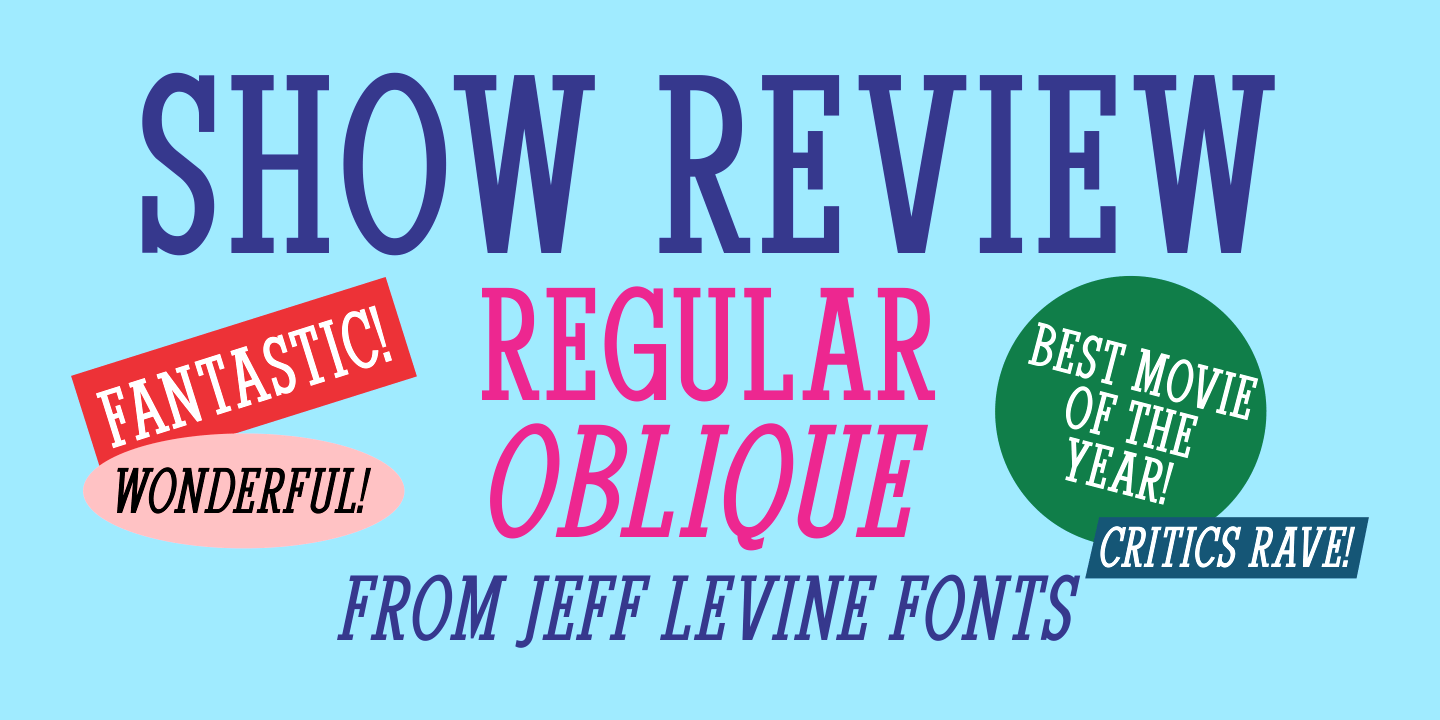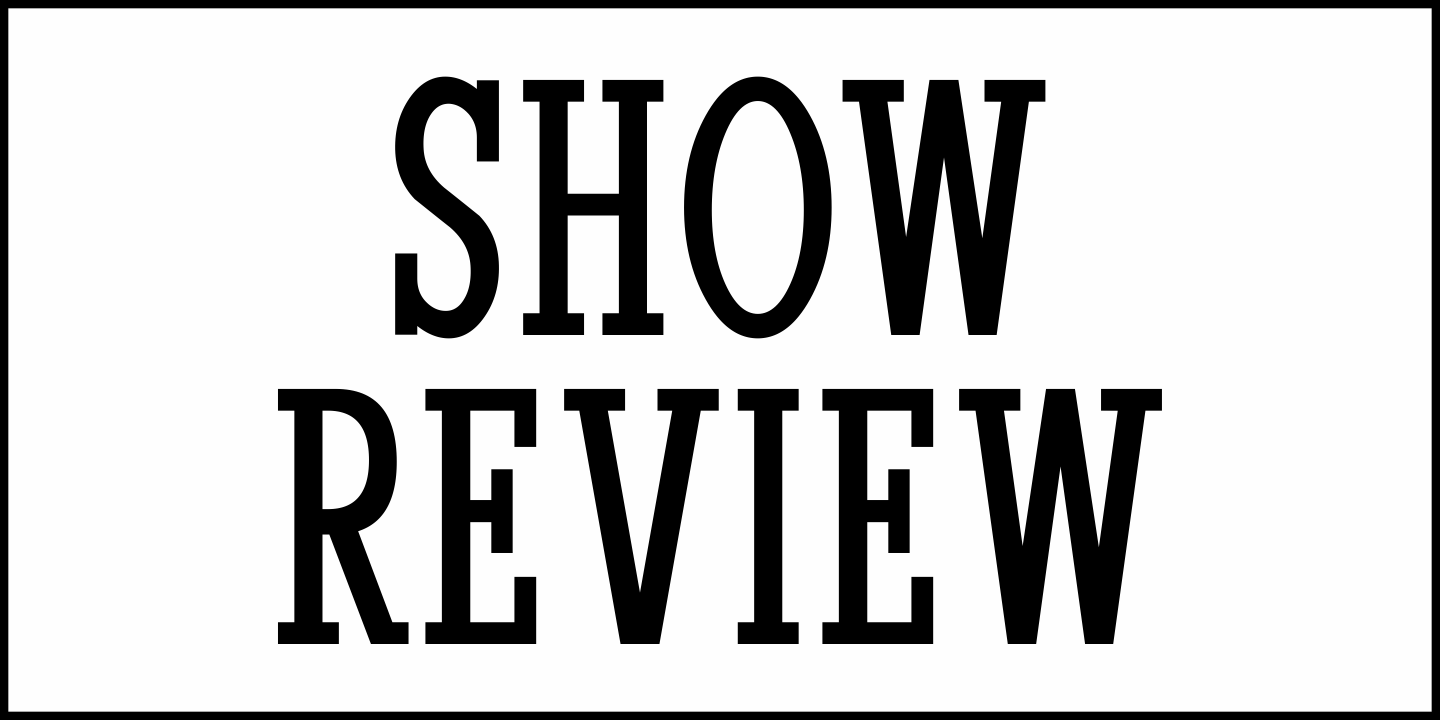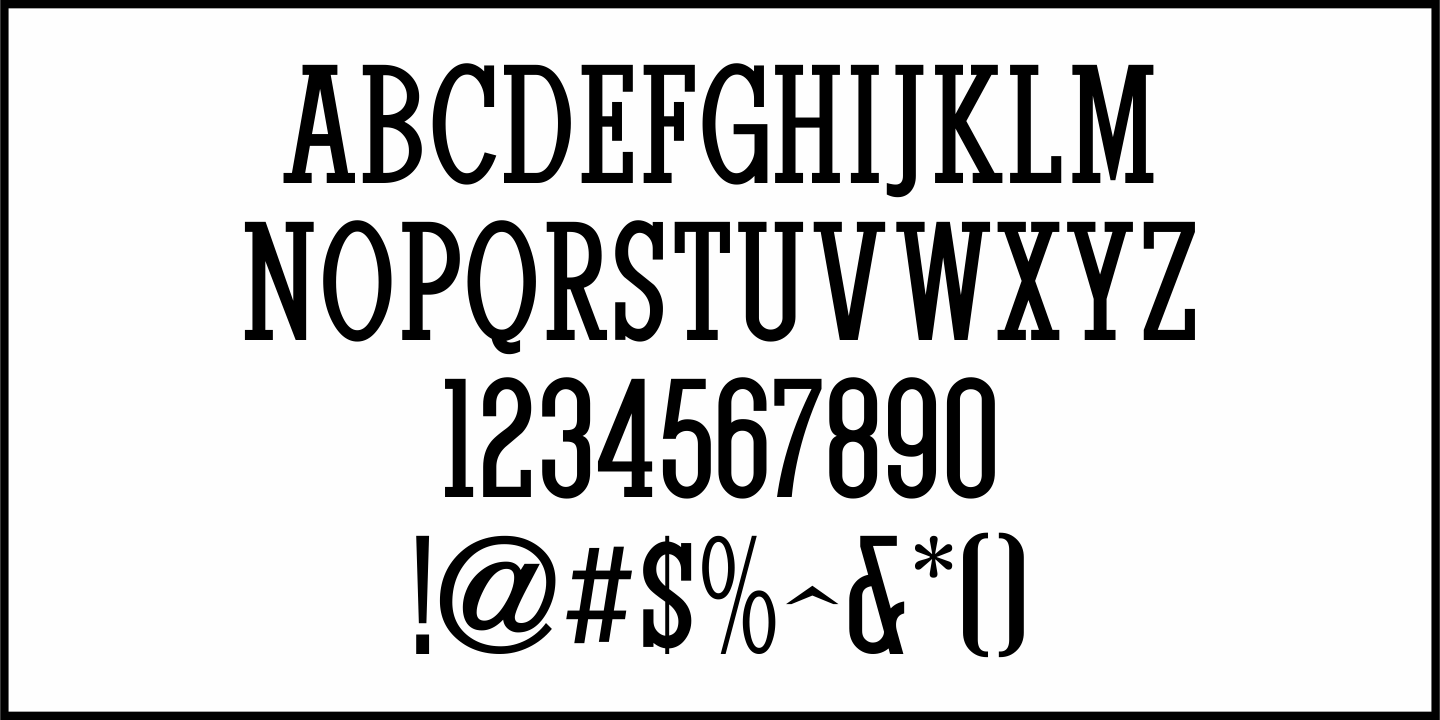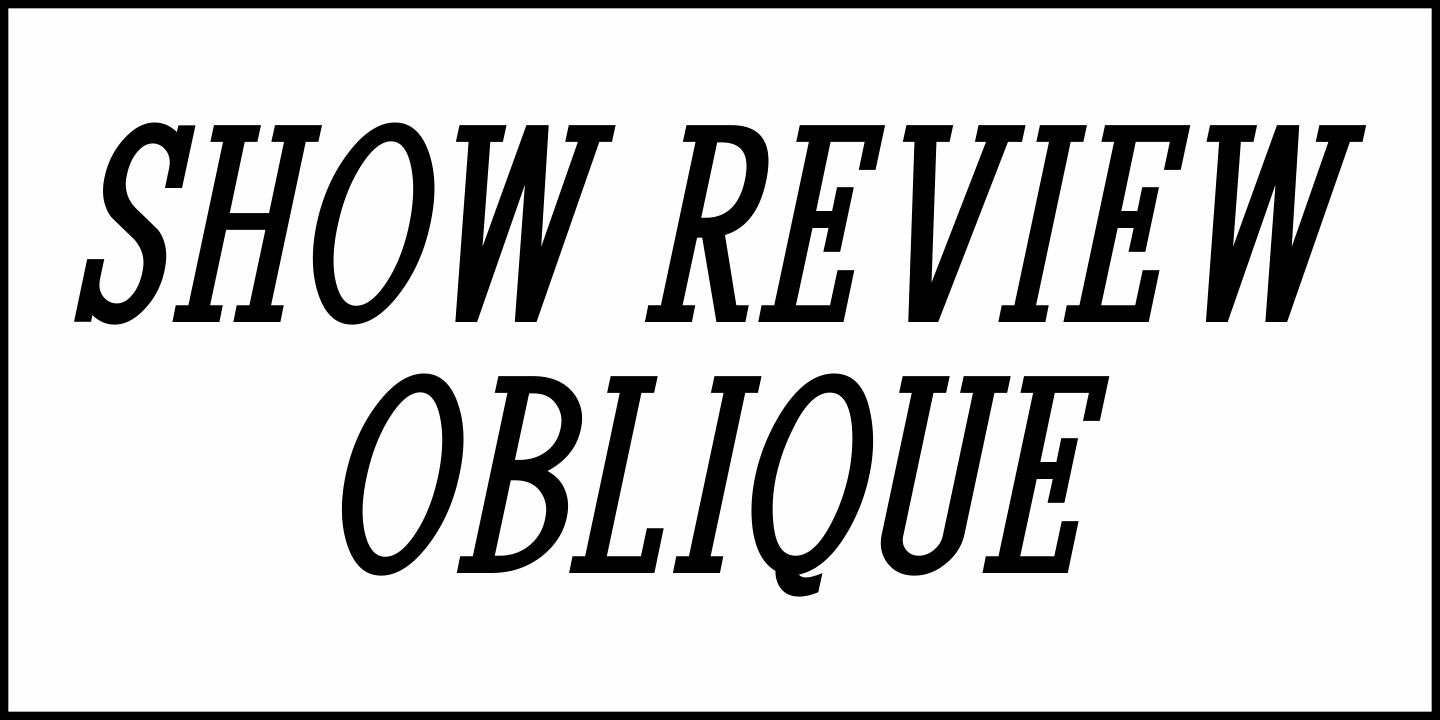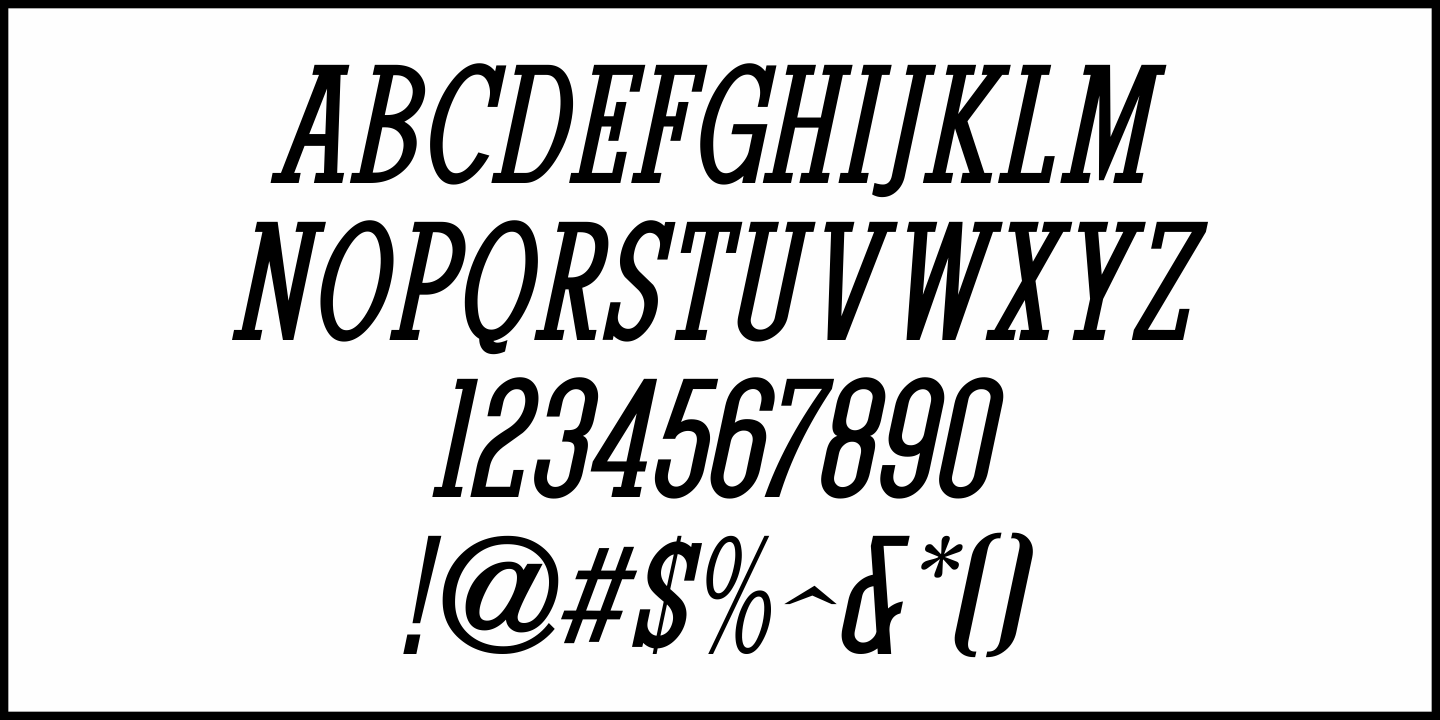
Show Review
In the January 4, 1941 issue of Showman's Trade Review was an ad for the film "Her First Romance". The blurb at the top of the promotional piece was set in Rockwell Condensed, part of a family designed for Monotype in 1934 under the supervision of Frank Hinman Pierpont.
Considered a monoweighted geometric slab serif, it shares some similarities with Stymie, Memphis, and Beton.
This digital interpretation is called Show Review JNL (a small homage to the magazine in which the ad appeared) and is available in both regular and oblique versions.